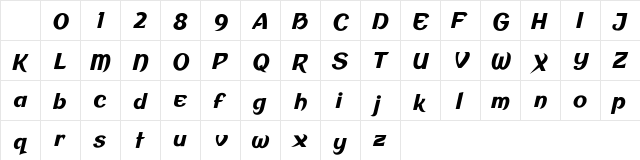
Mirendo is a composed and adaptable typeface that performs quietly and consistently across a wide range of design contexts.
Pro Tip: Use Mirendo in both headline and body roles to test its range before committing to a single application.